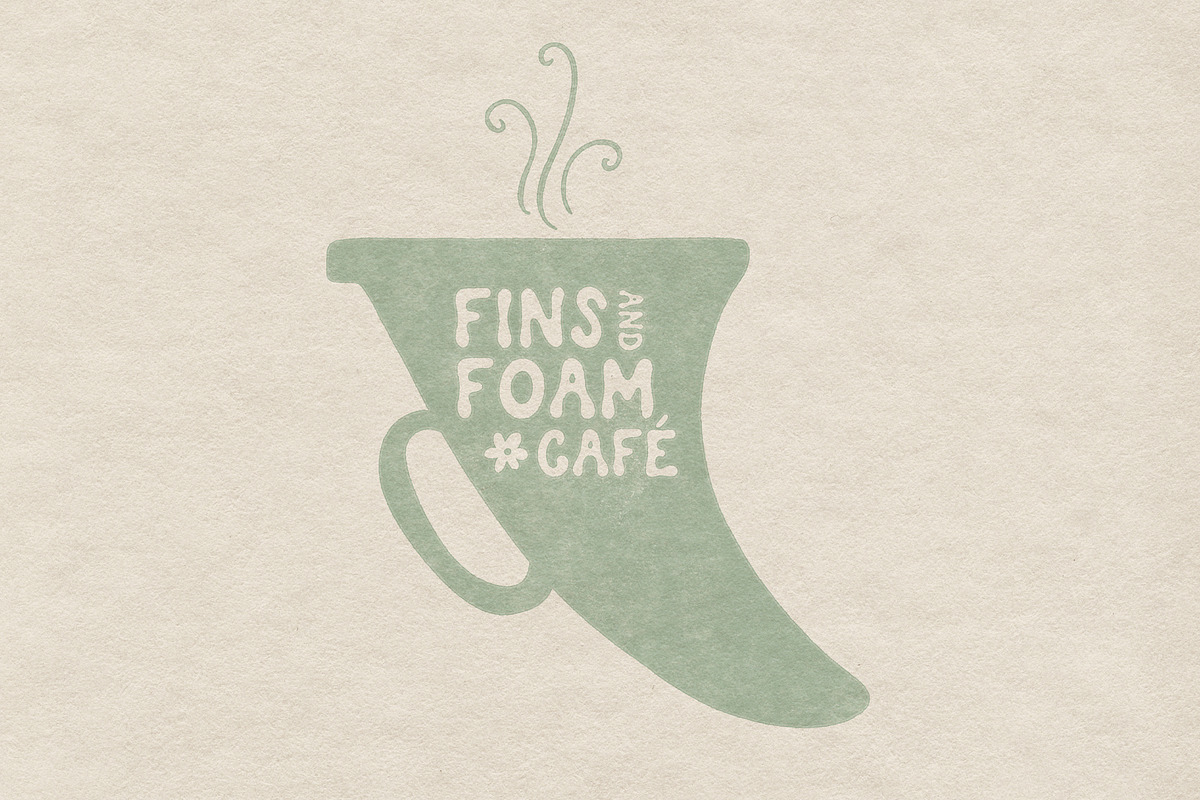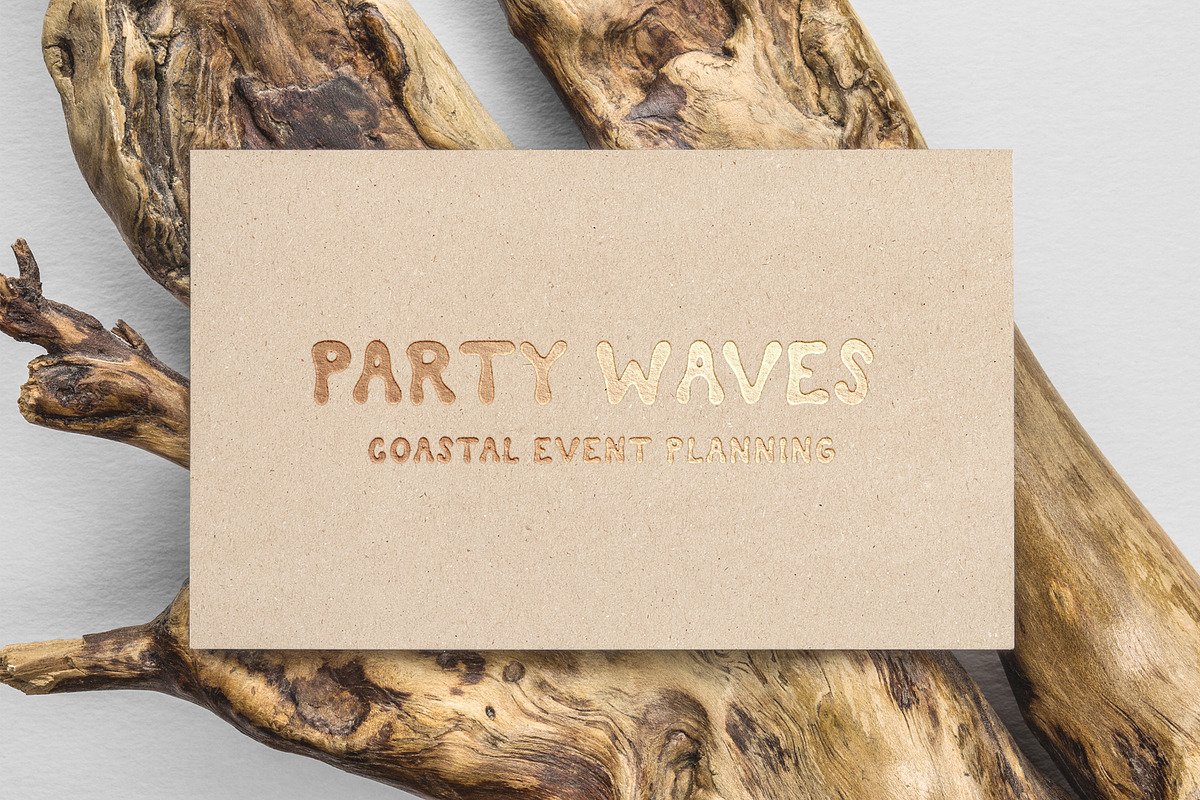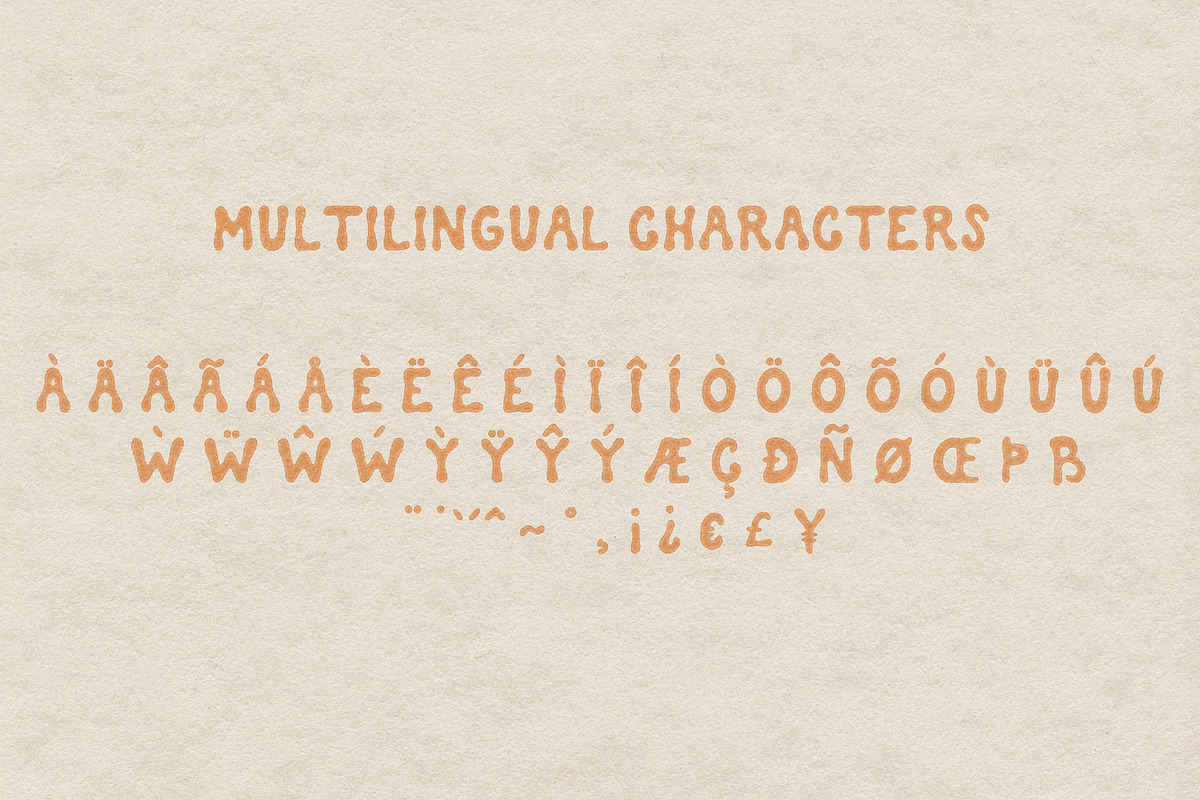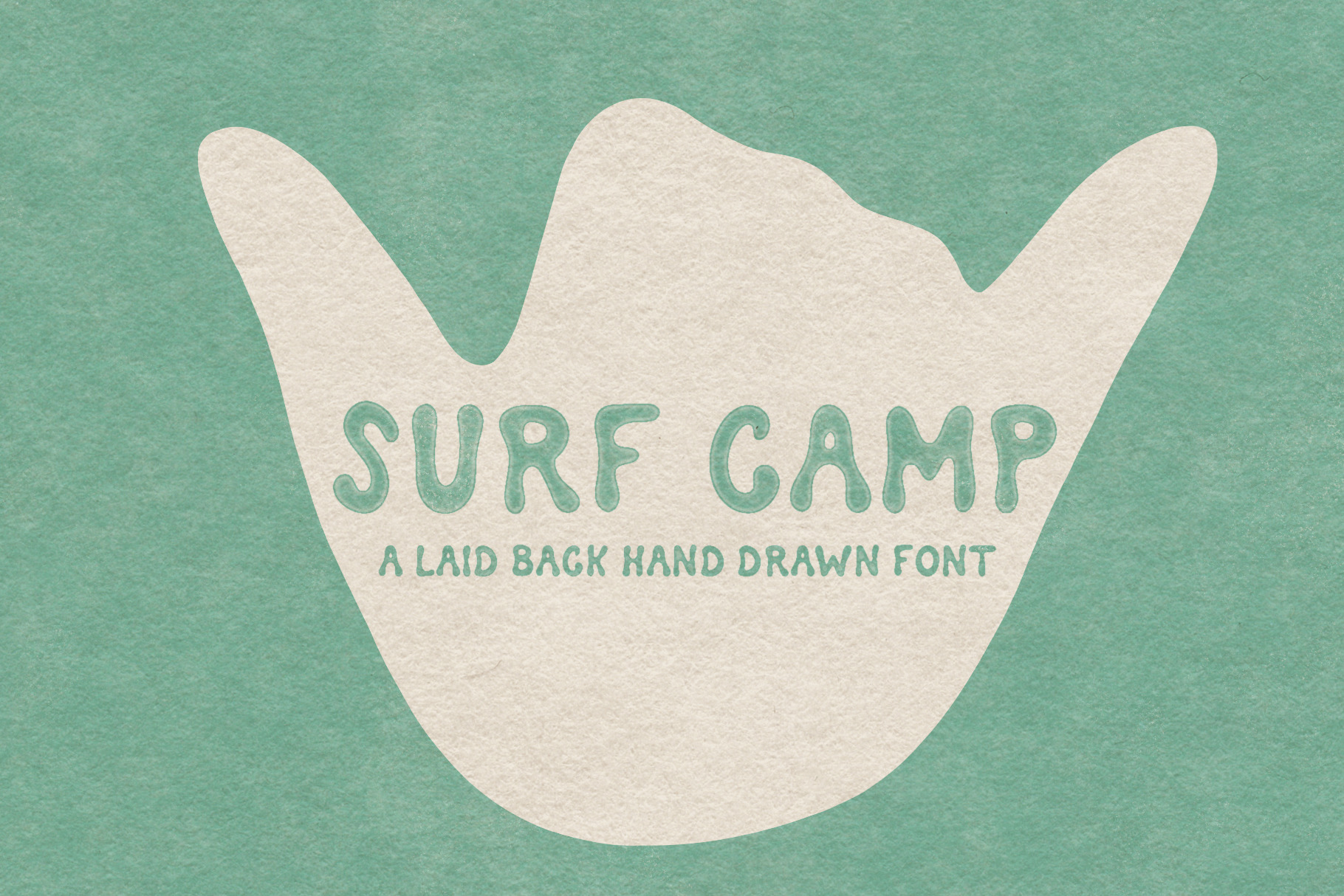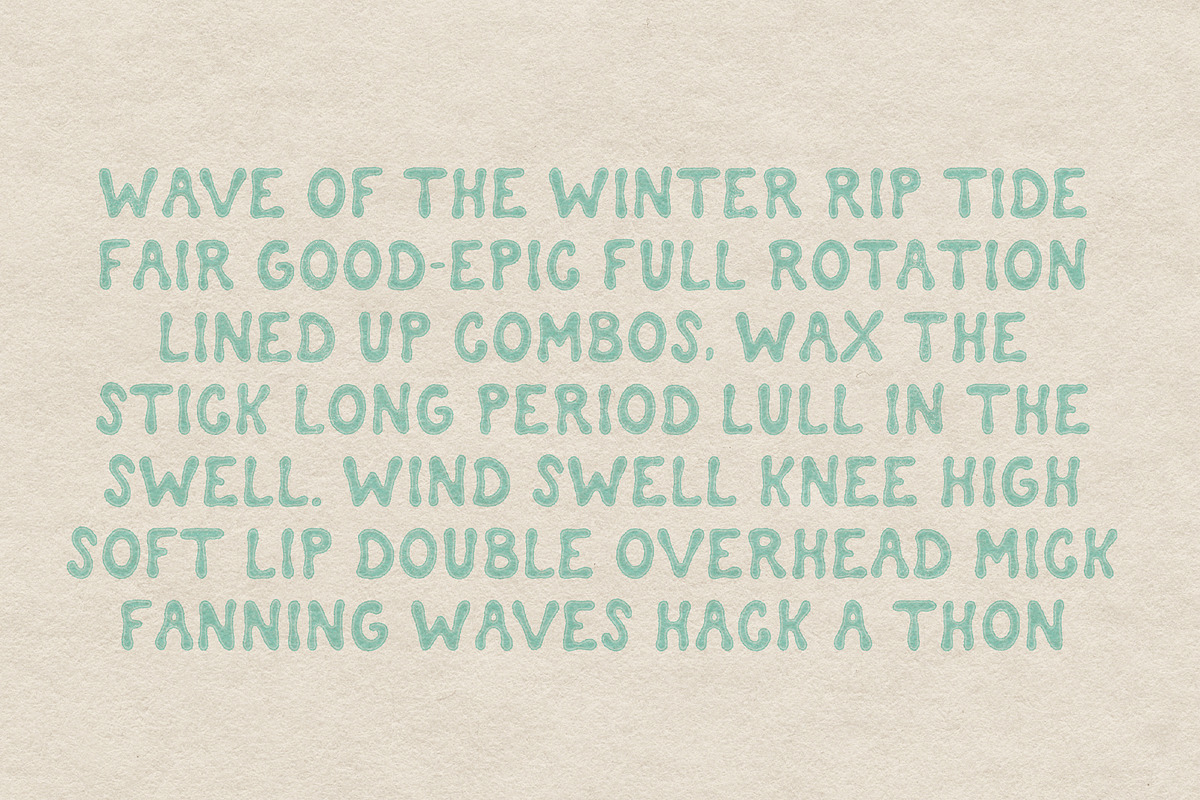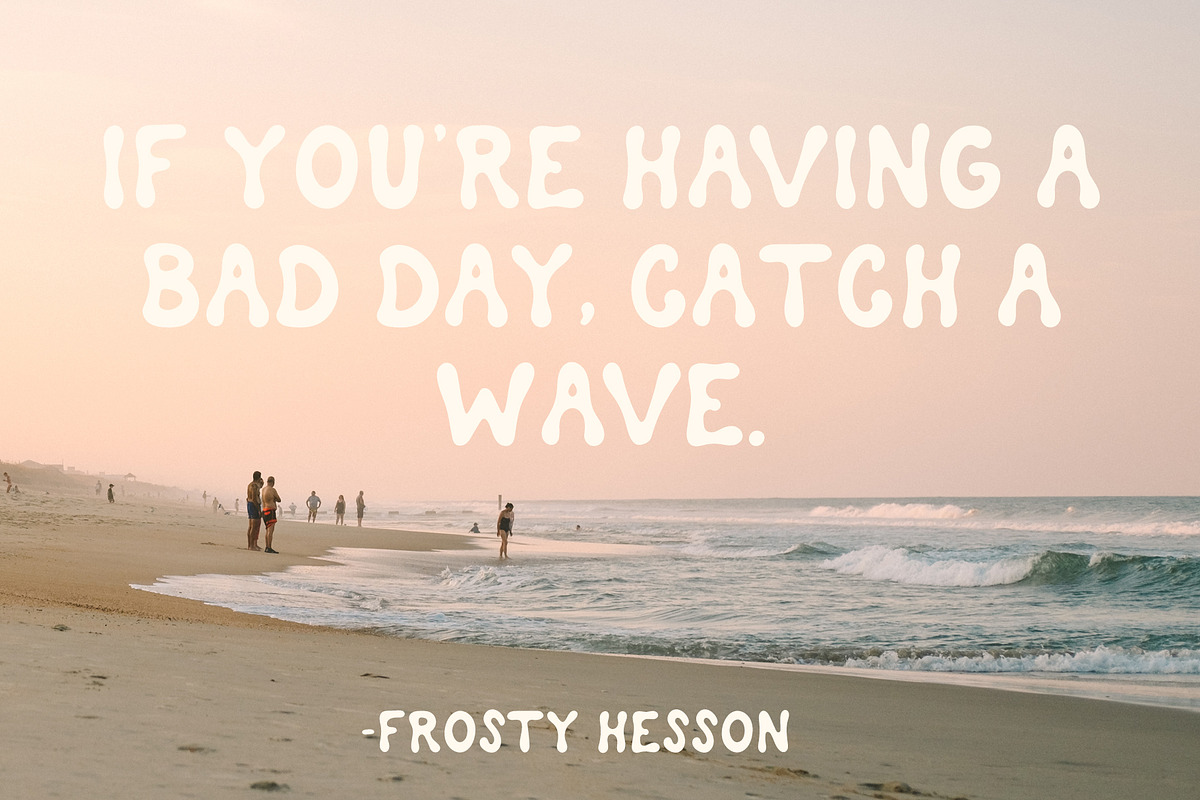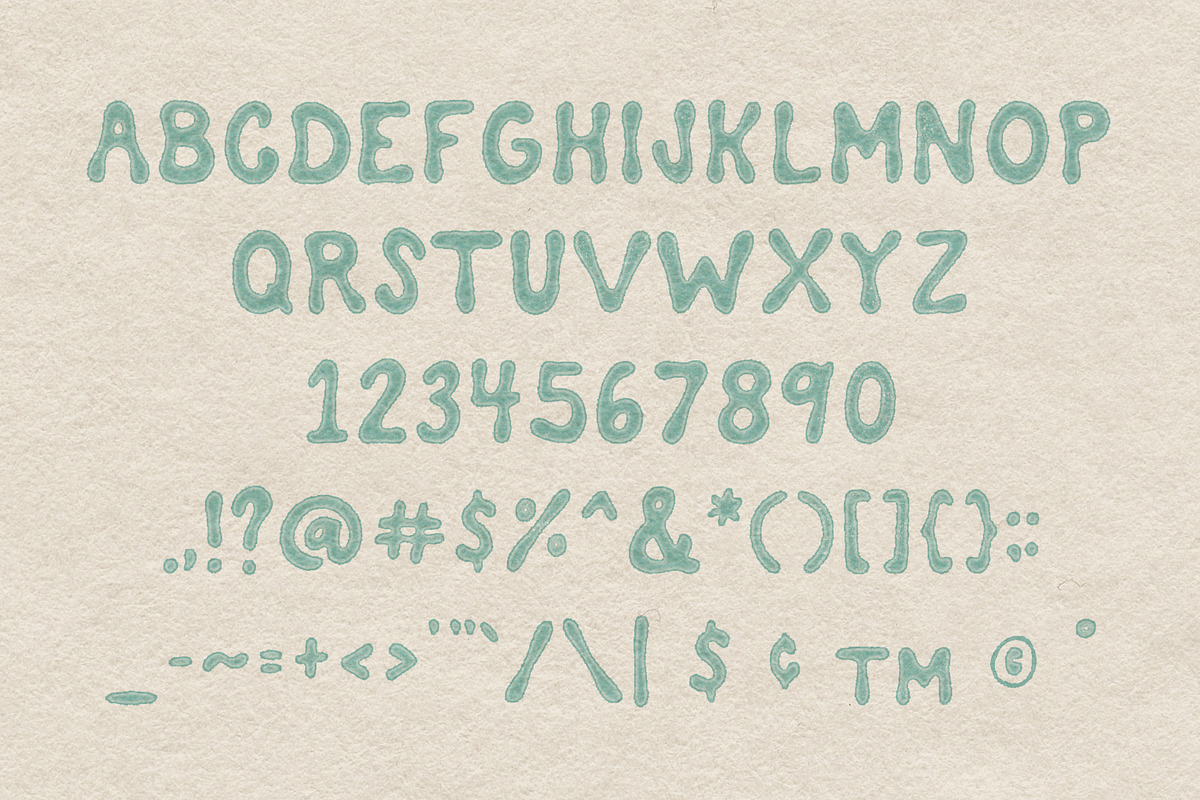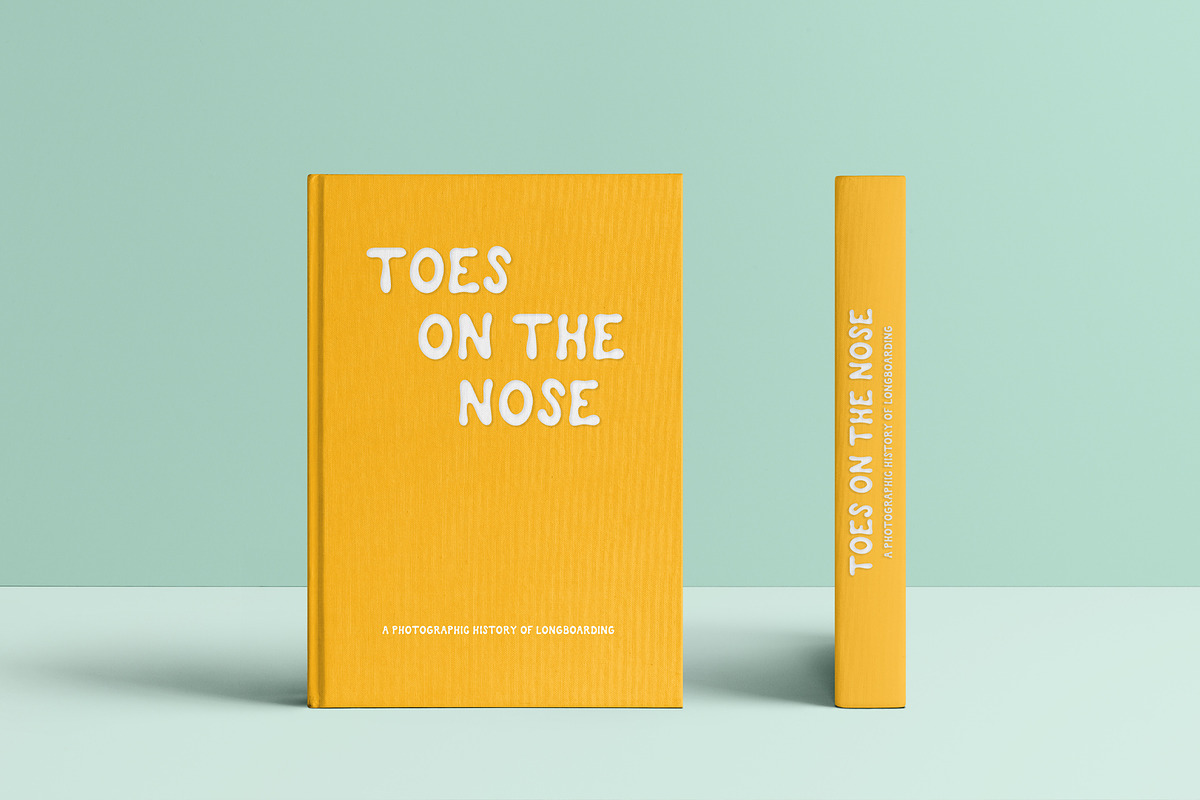
Surf Camp: A Hand Drawn Font
Introducing: Surf Camp, a laid back hand drawn font! Inspired by chilled out days by the sea, I worked on this font during a trip to the Outer Banks where, you guessed it - I attended a surf camp.
This is a hand drawn font, so its imperfection is a part of its character. Use Surf Camp for anything where you want to have a laid back vibe, from logos, merch, posters, crafting, and more.
- Regular weight unicase font (both uppercase + lowercase use the same glyphs)
- Numerals, punctuation, and standard symbols
- Diacritics + western European characters